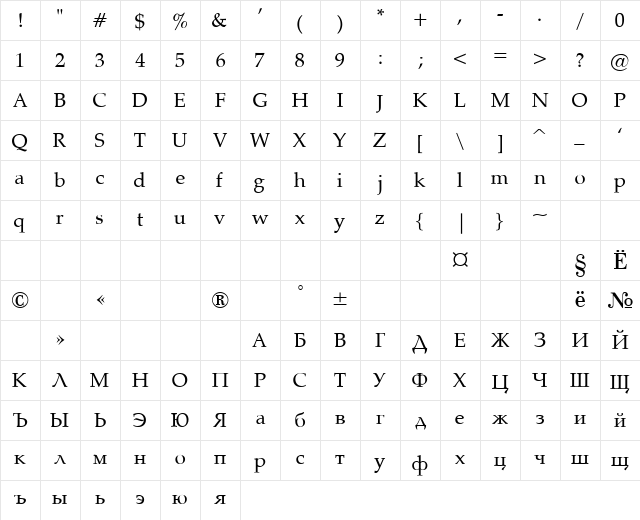
Palatini Regular Free Font
Design Context for Palatini
Palatini is a composed and adaptable typeface that performs quietly and consistently across a wide range of design contexts.